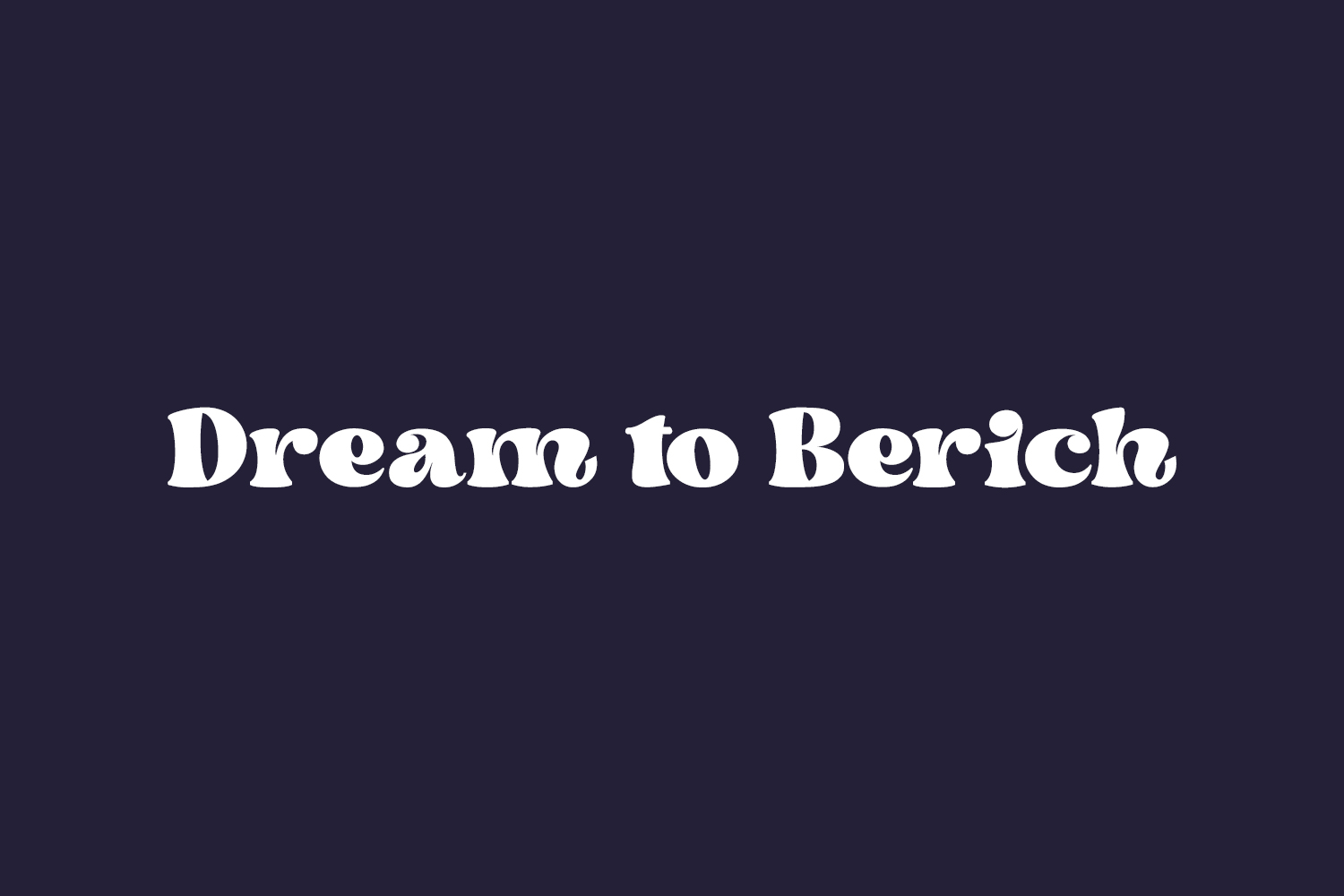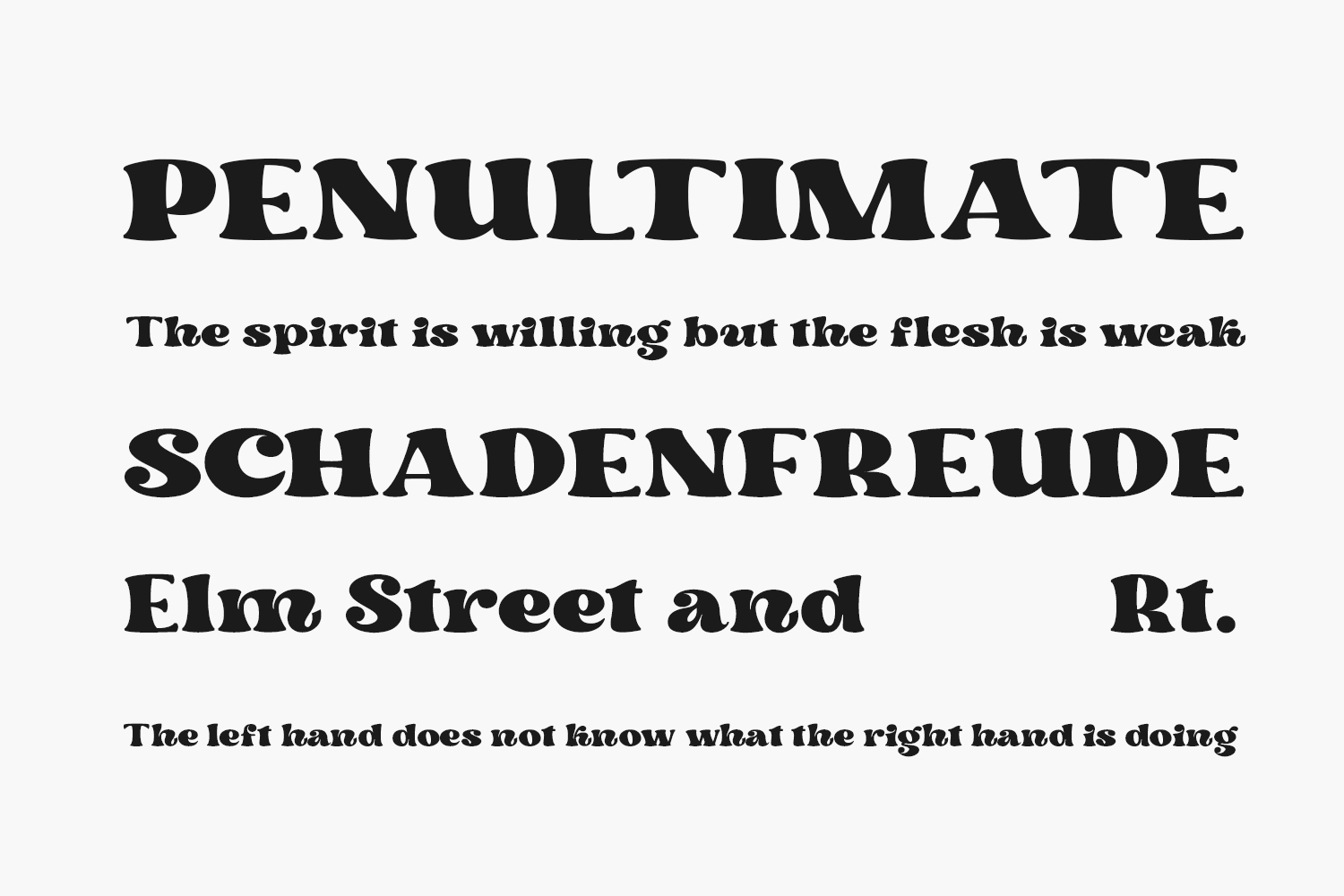
Dream to Berich Free Font is a stylish and trendy serif font. Add it confidently to your favorite creations and let yourself be amazed by the outcome generated. Dream to Berich Free Font was designed by Zeenesia Studio is a demo and free for personal use only. Please purchase the full version for commercial use.